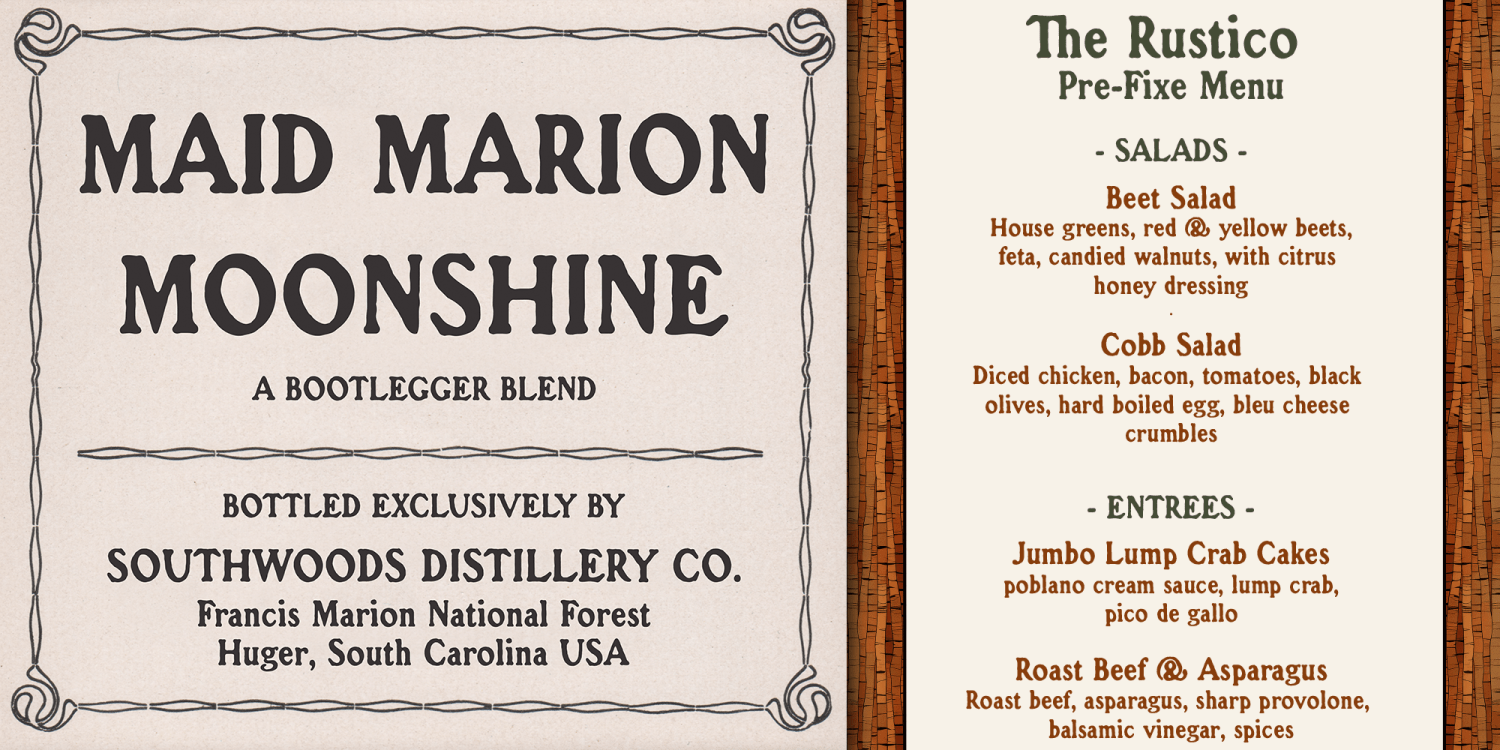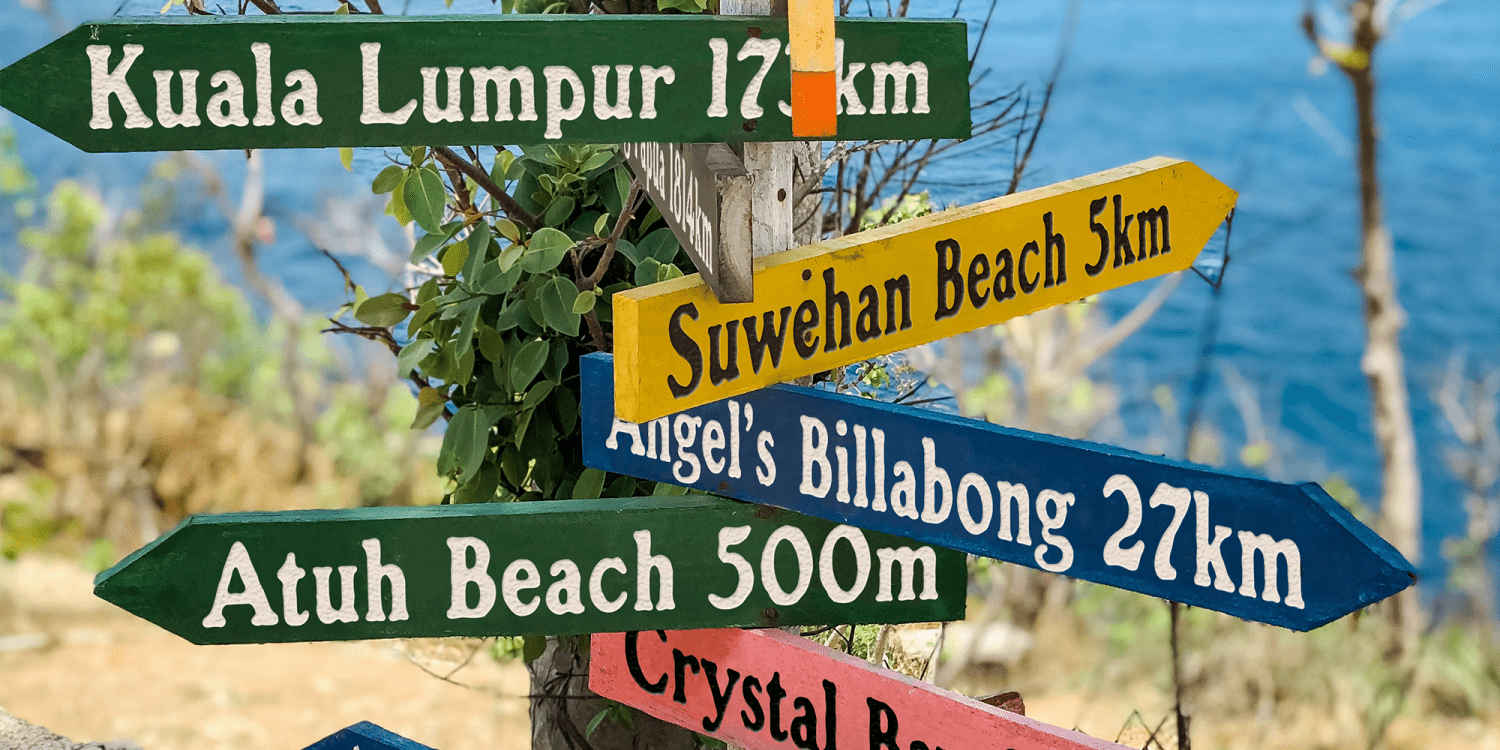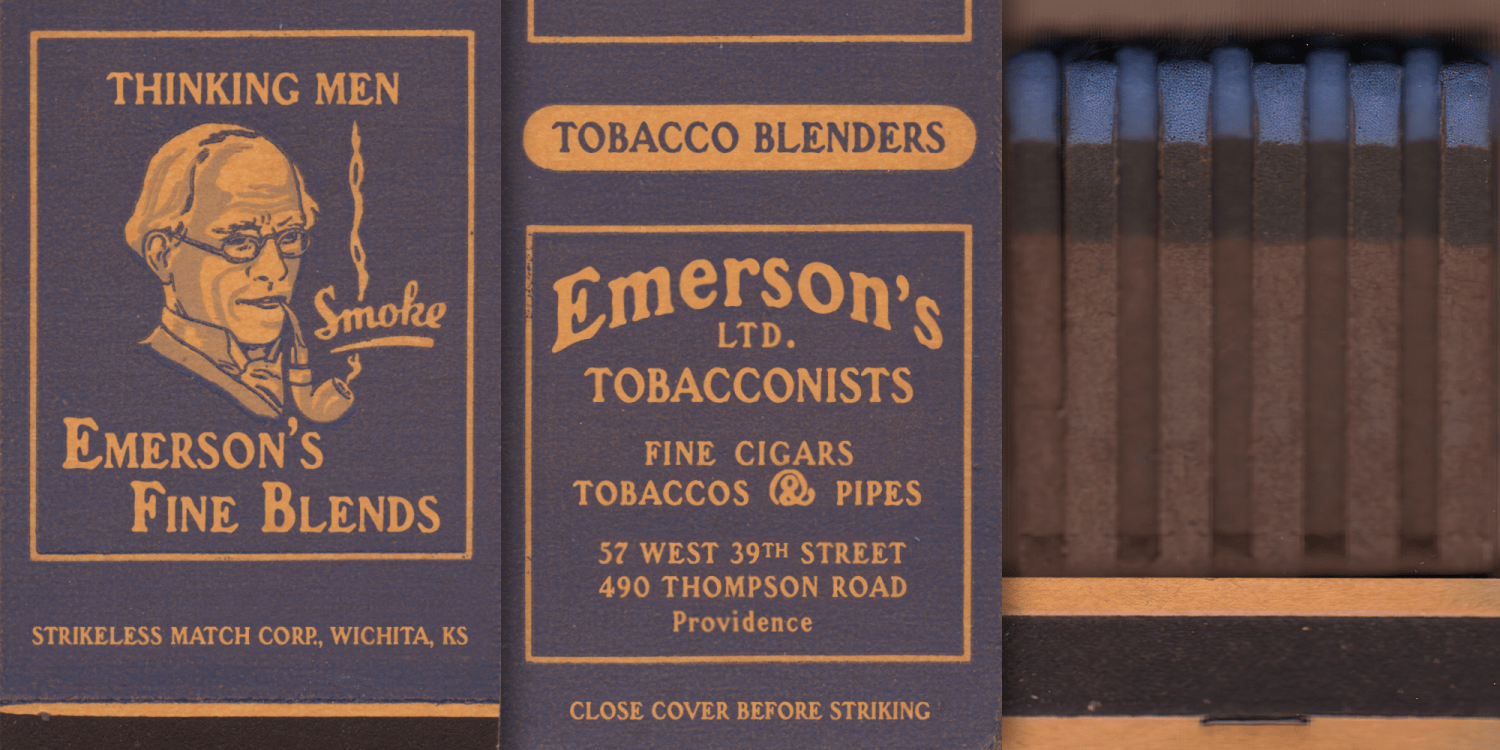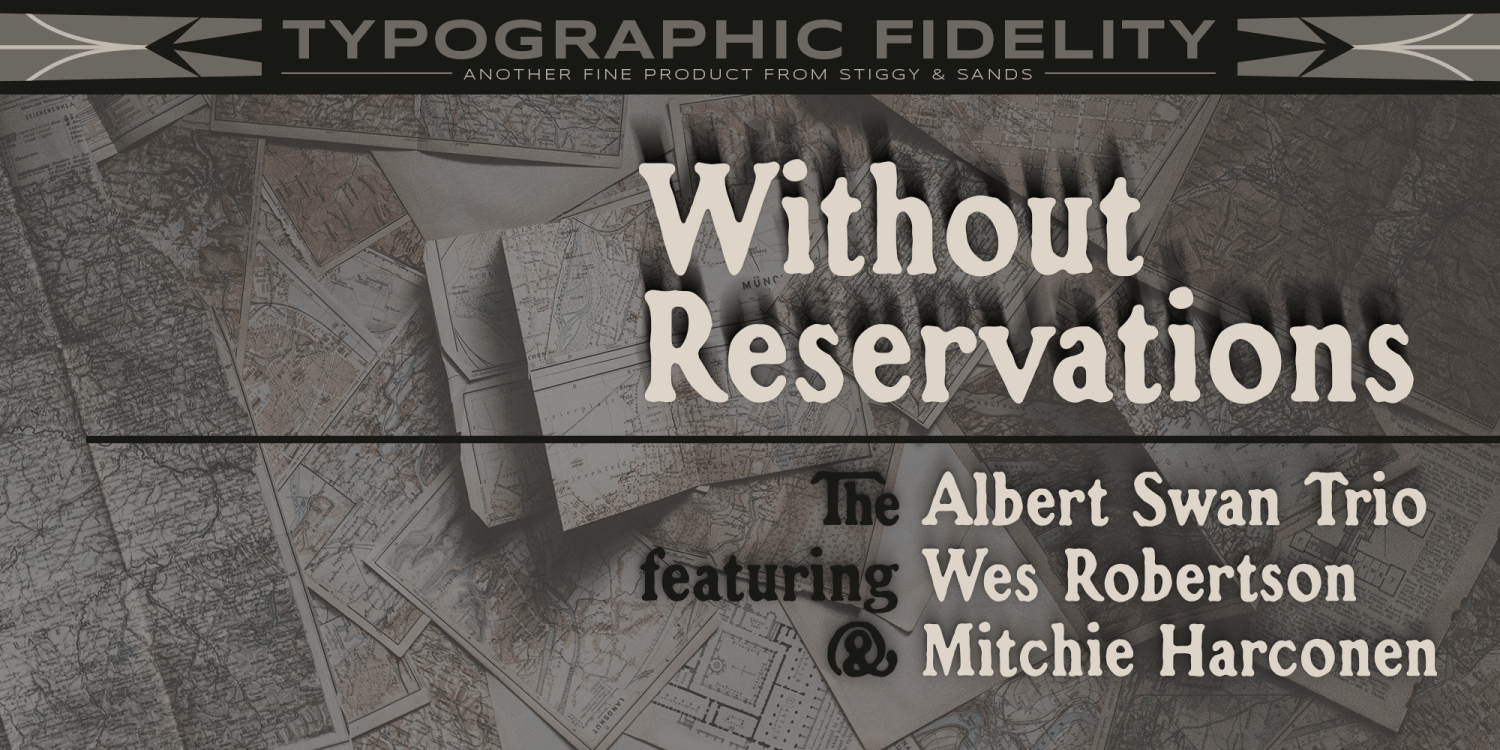
About Croft
Historical typography makes a comeback. A revival of one of the most popular of a number of rugged typefaces used around the turn of the century, Croft revives the creation of Lewis Buddy III, known as Roycroft in 1912 ATF catalogs. It also, according…